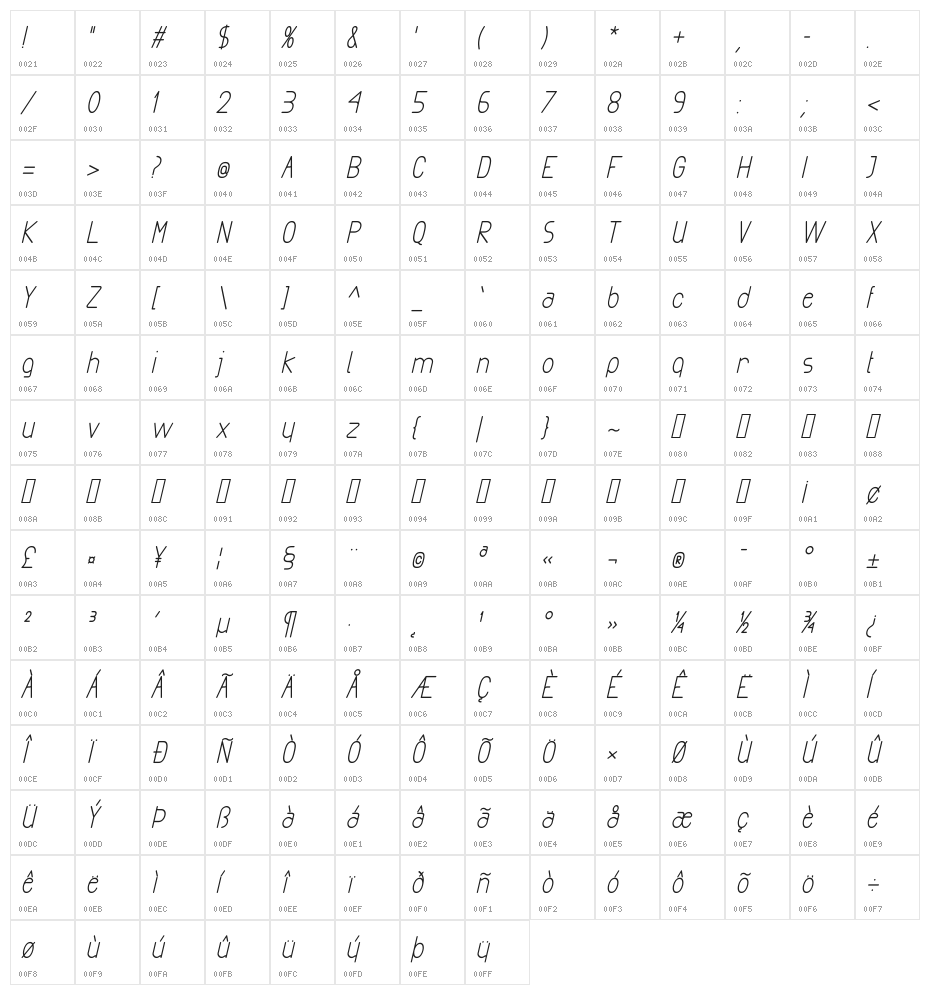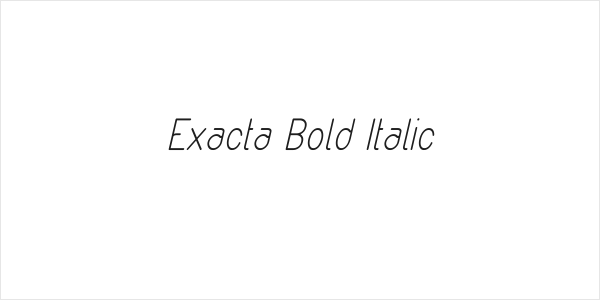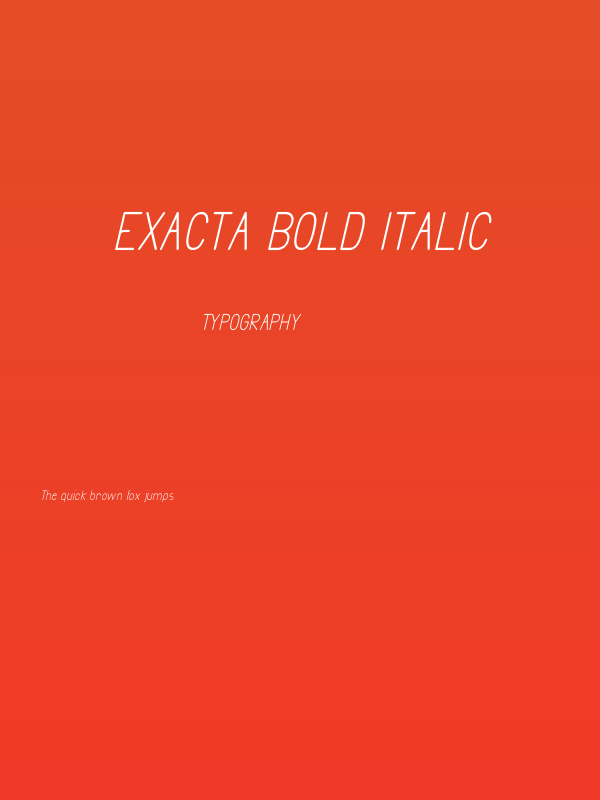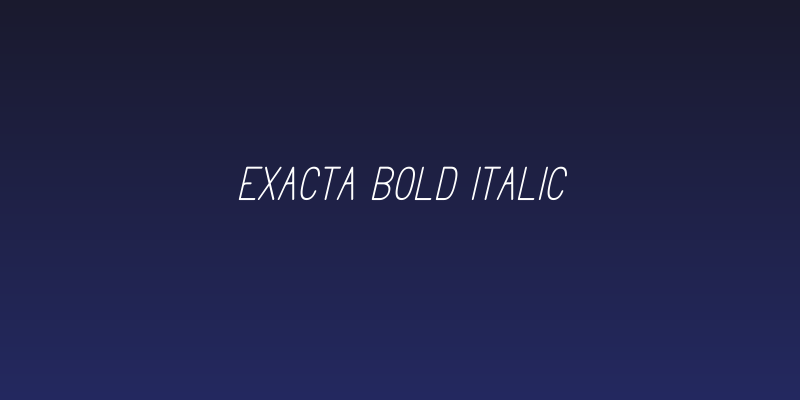
Exacta Bold Italic Font
Exacta Bold Italic Description
This font features a sleek, italicized design with a modern and streamlined appearance. The characters are slightly elongated, giving them a dynamic and elegant look. The strokes are consistent in weight, providing a uniform and cohesive style across all letters and numbers. The font maintains a clean and professional aesthetic, making it suitable for a variety of design applications. The special characters are well-integrated, maintaining the overall style and ensuring versatility in usage.